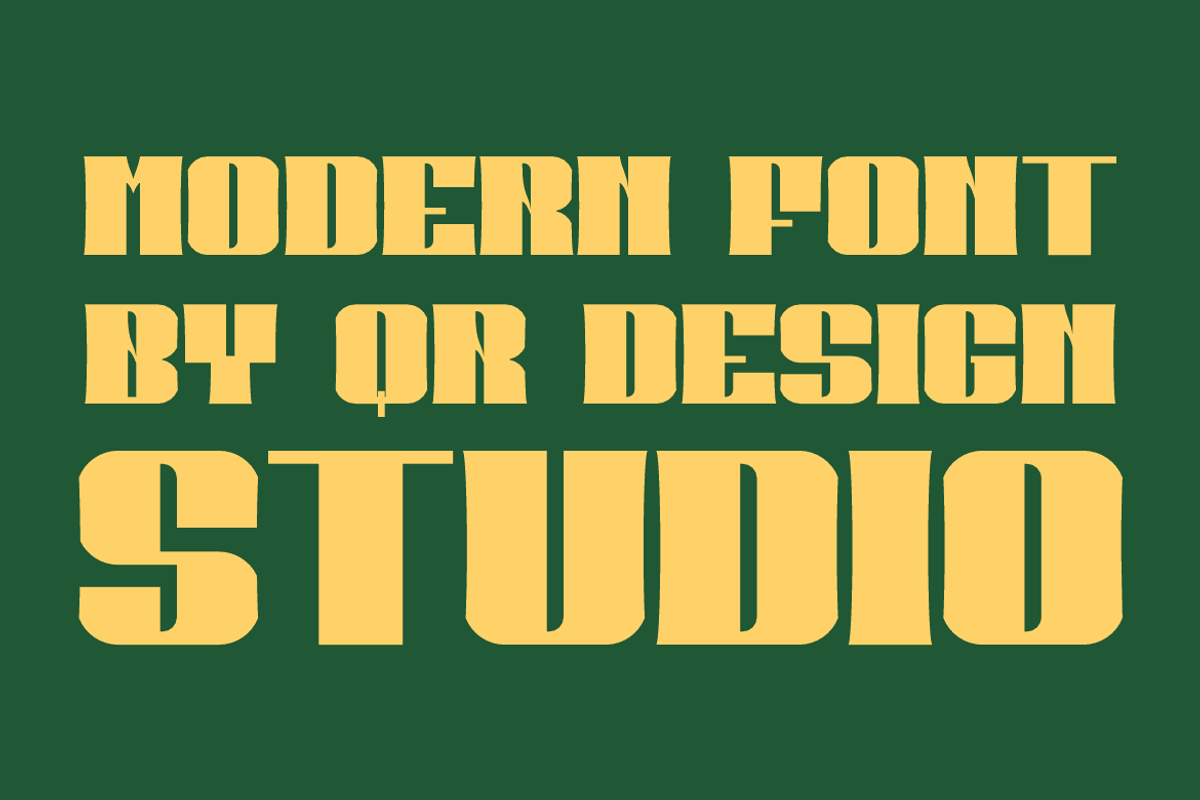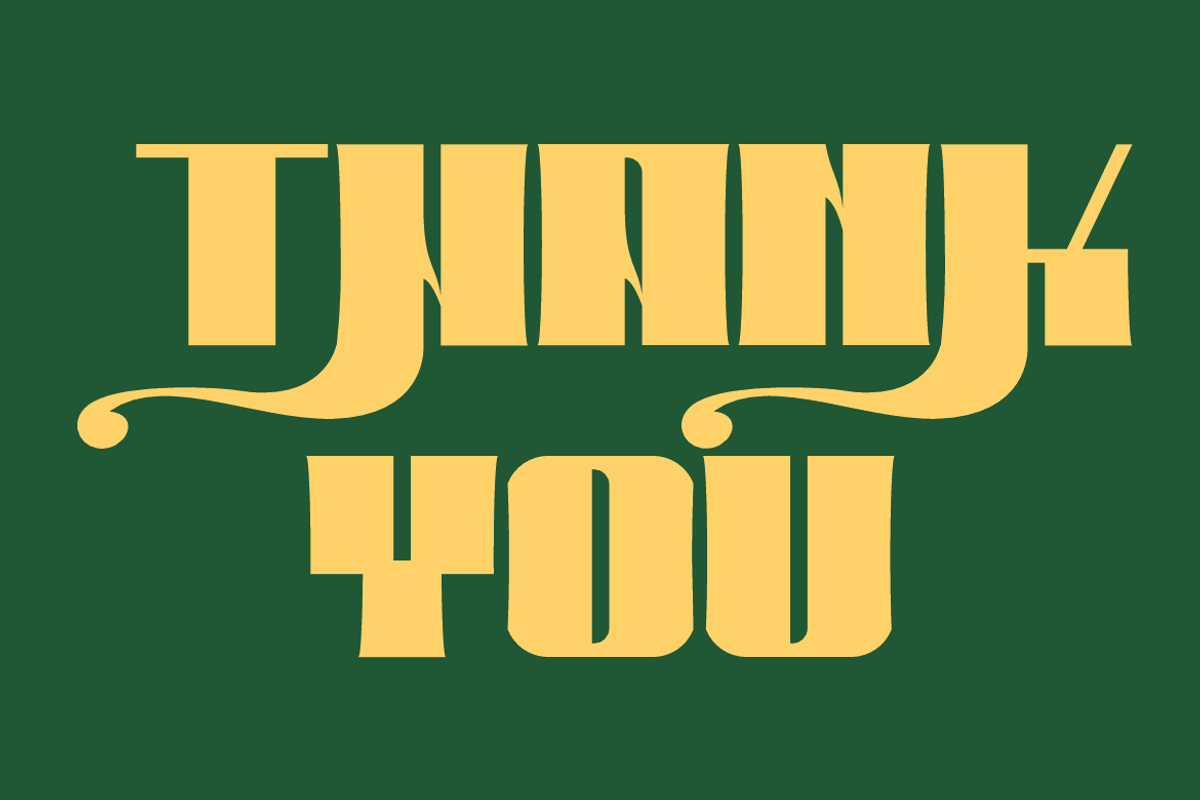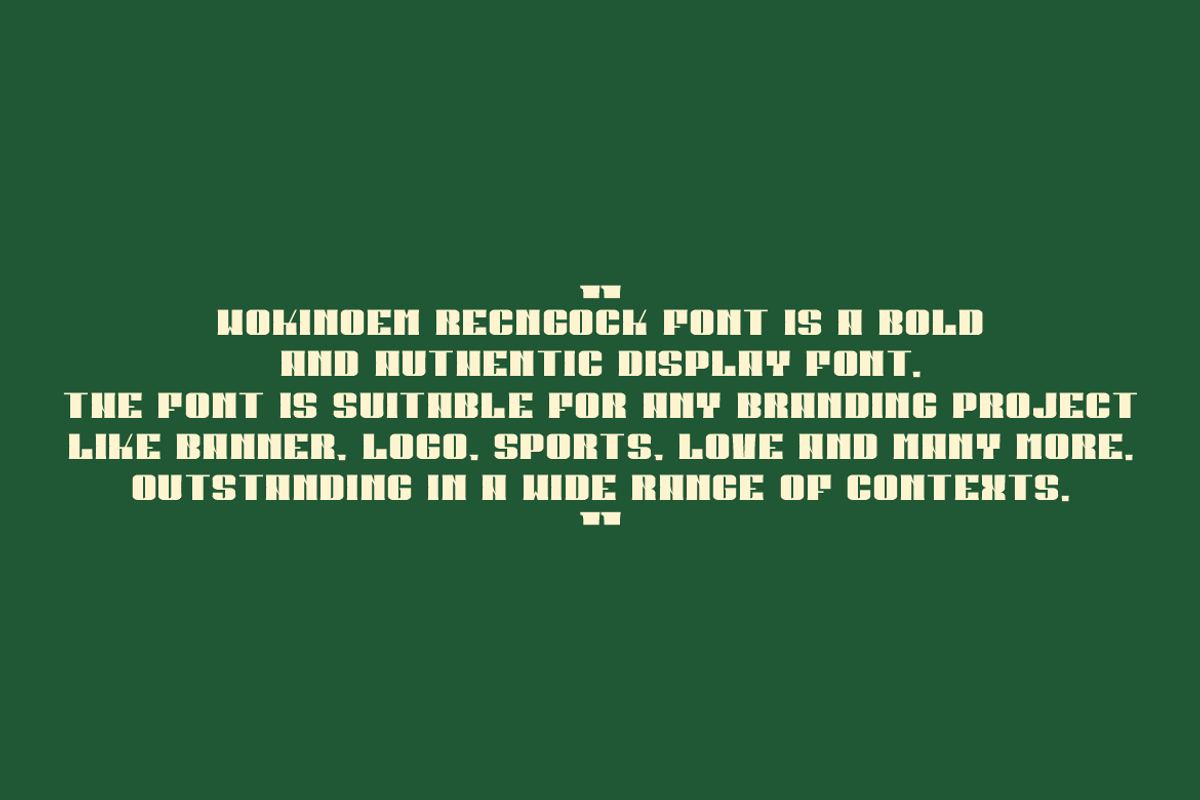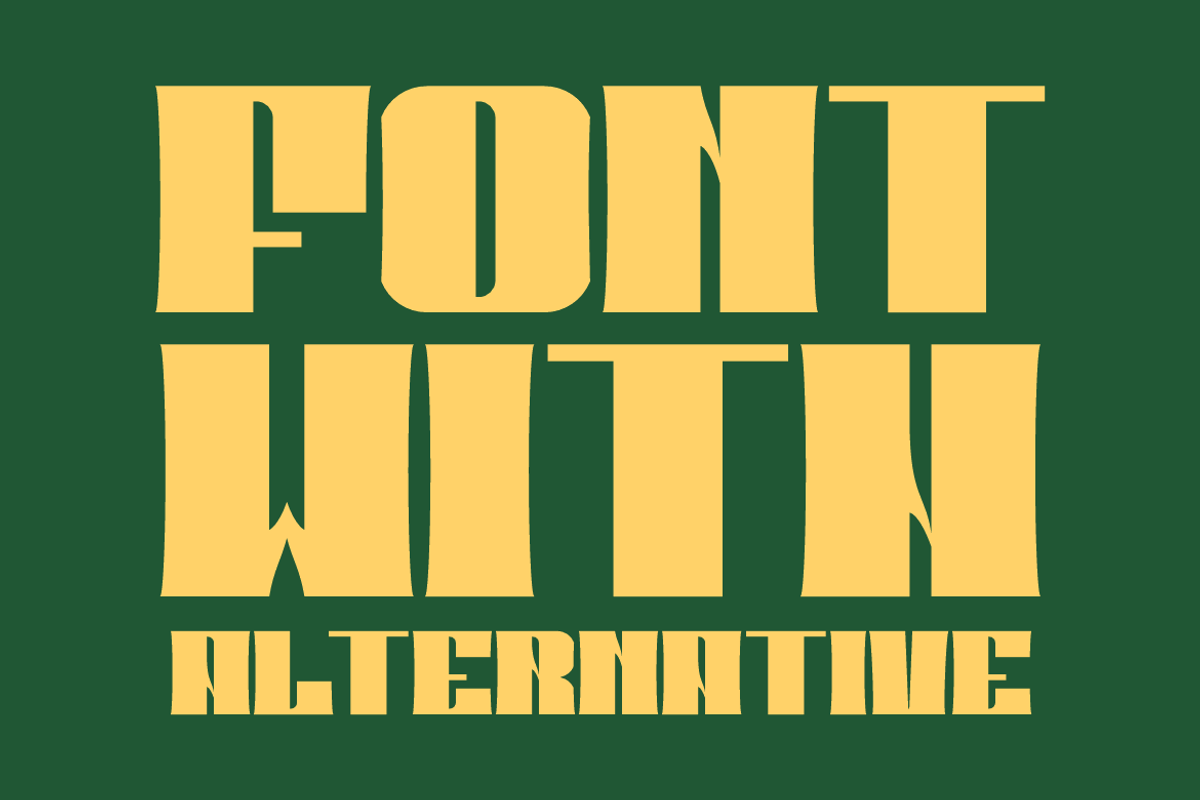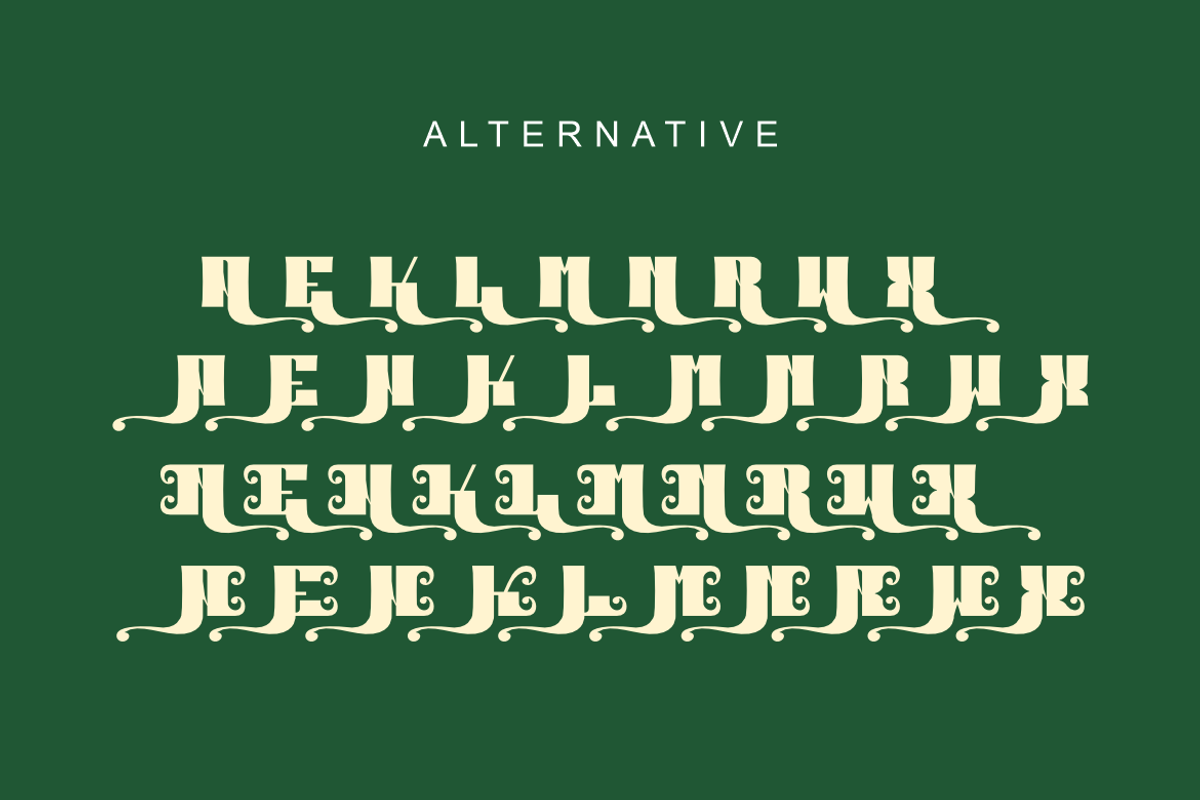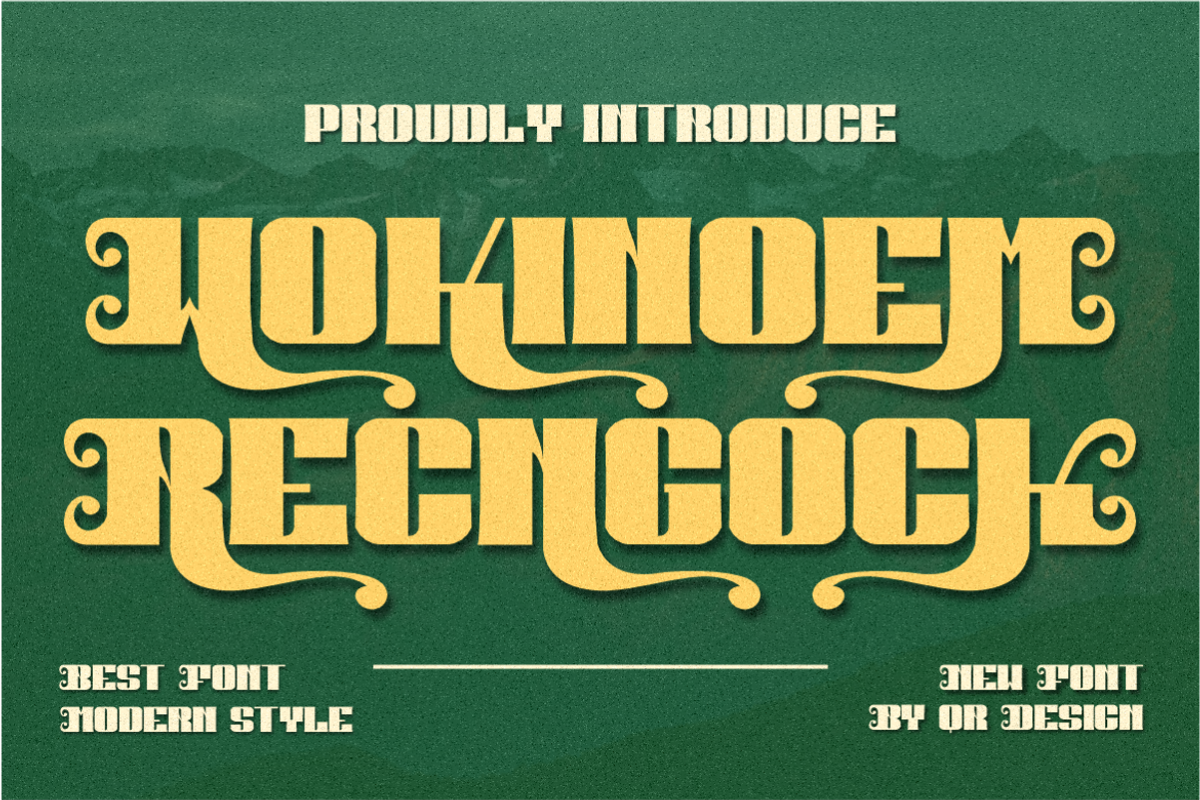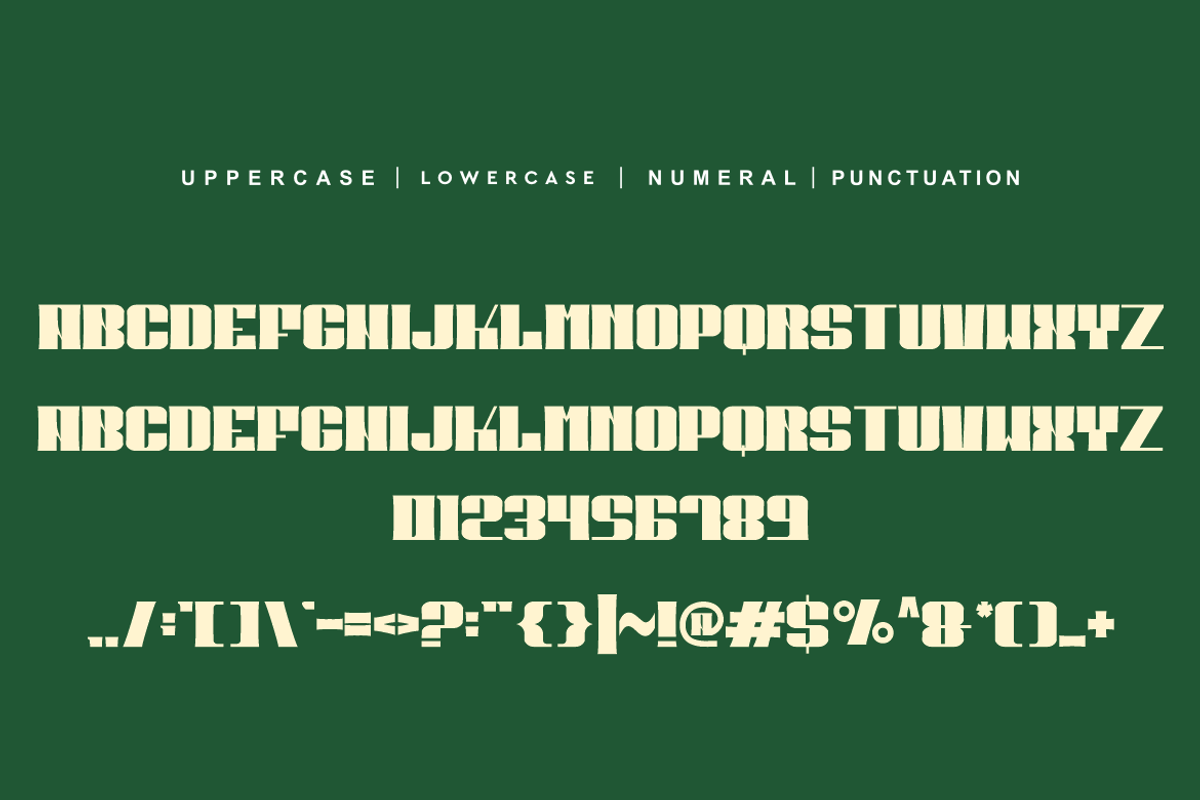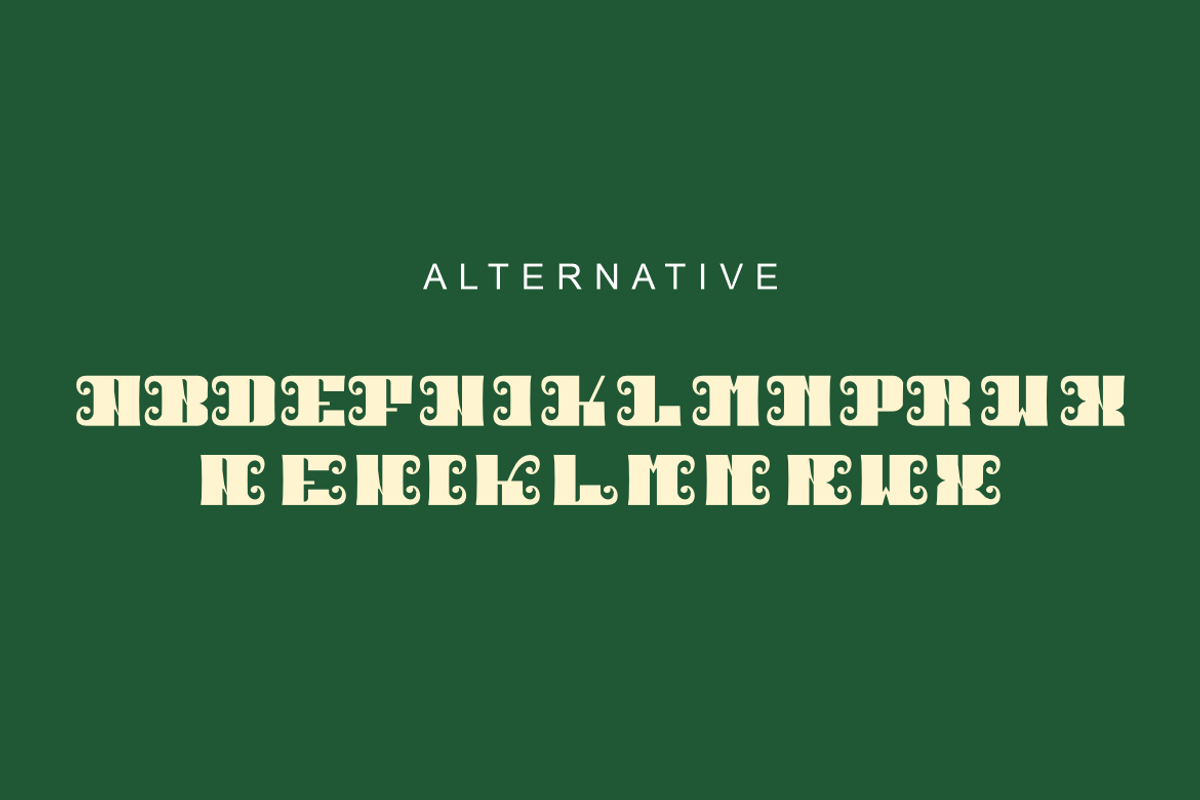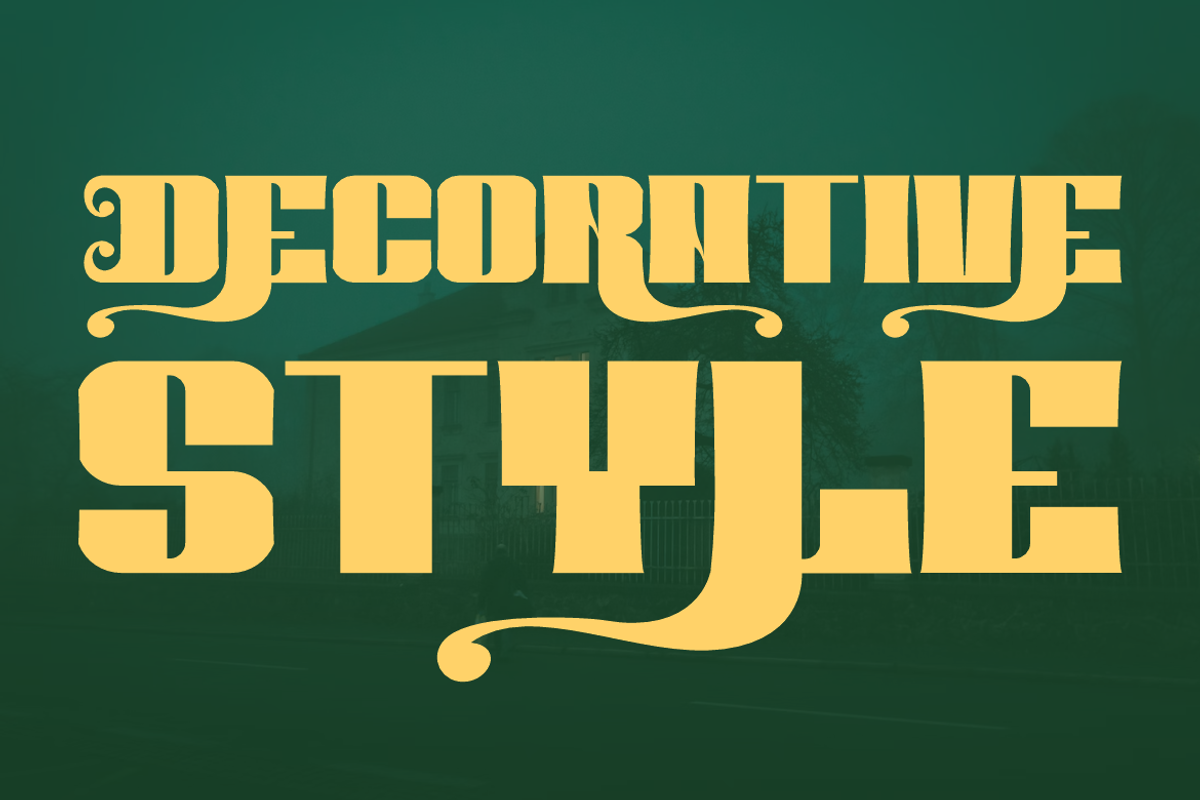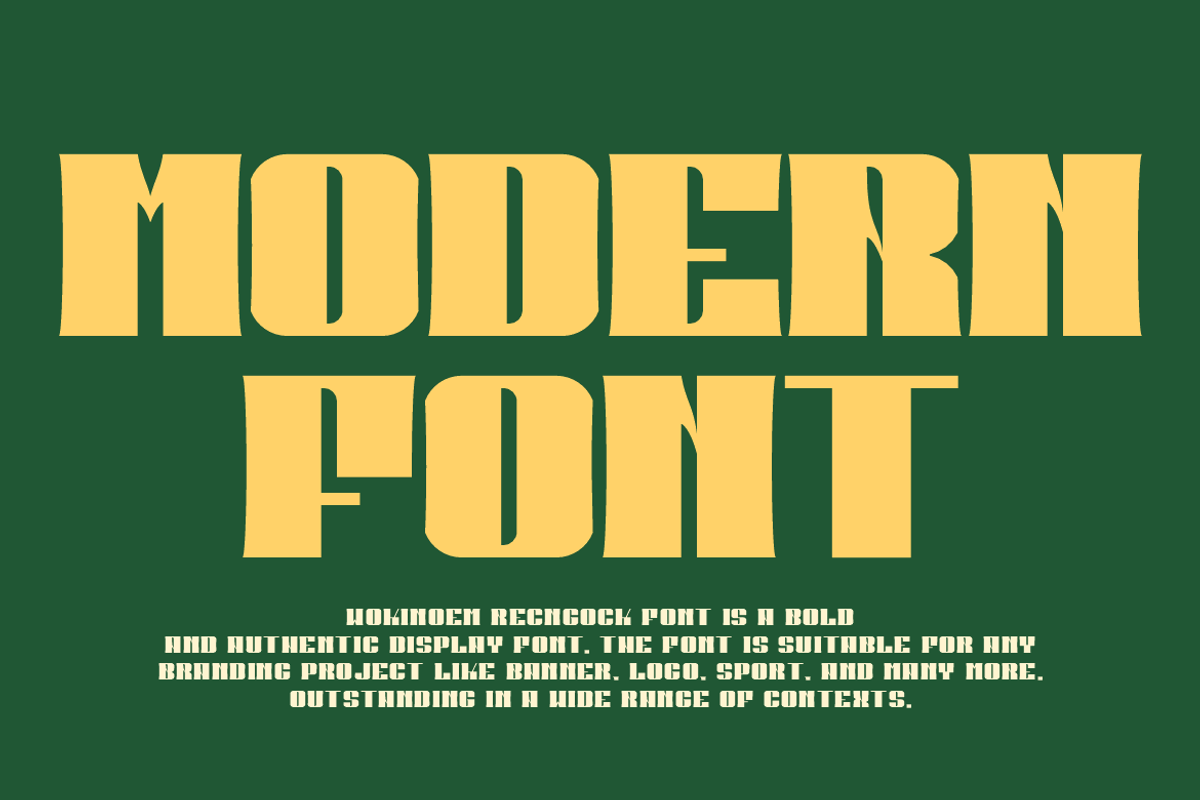
Wokinoem Recngock
Wokinoem Recngock Font is a bold and authentic display font. The font is suitable for any branding project like logo, sport, wedding, romantic, wedding, love, food, and many more. Outstanding in a wide range of contexts.